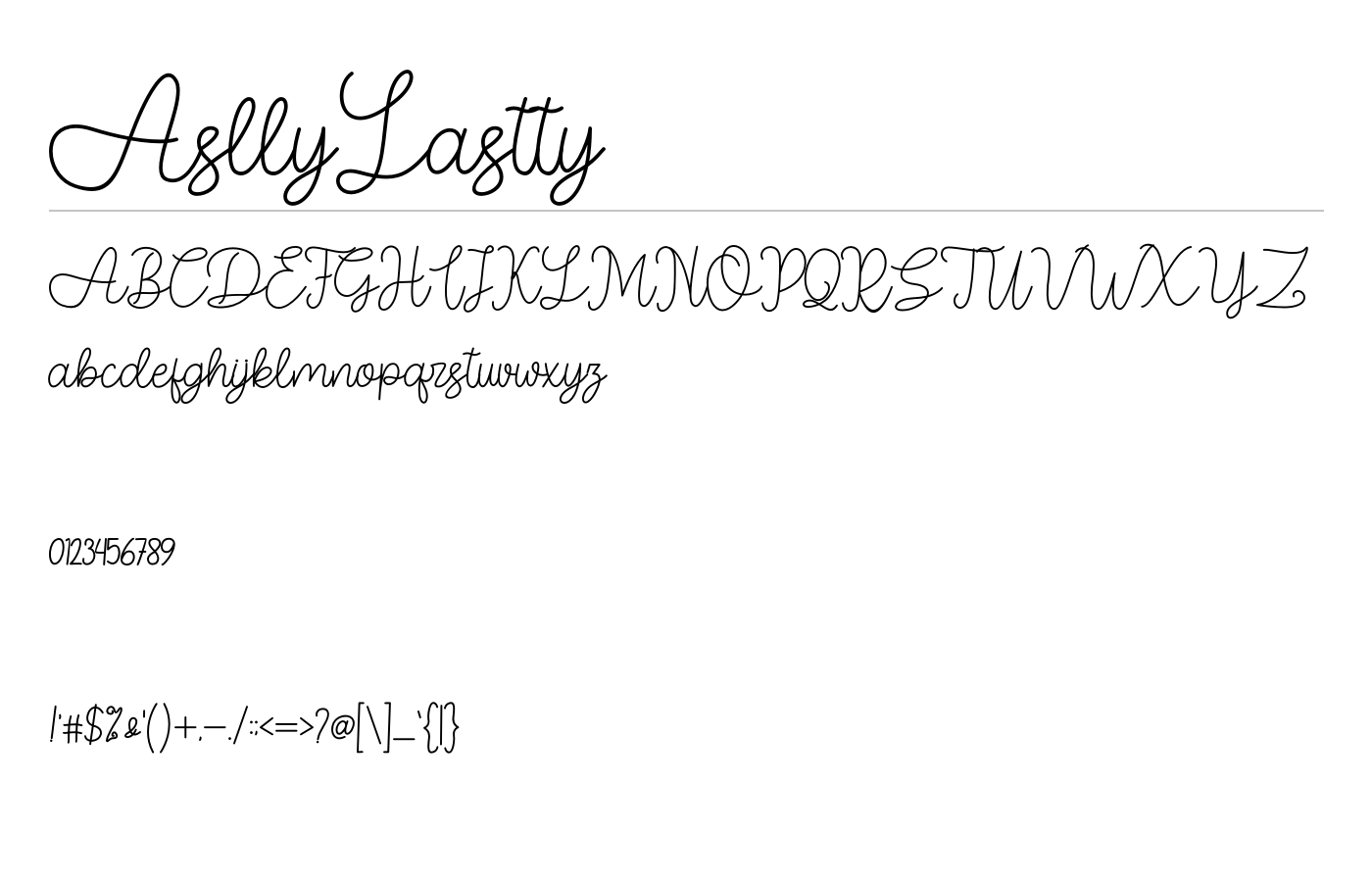
AsllyLastty is a delicate, elegant script font characterized by its thin, flowing strokes and graceful cursive letterforms. With a light weight and airy spacing, it conveys a refined and personal touch, ideal for invitations, branding, and any design requiring a sophisticated handwritten style. Its smooth, connected letters evoke charm and warmth, making it perfect for fashion, wedding, and luxury-themed projects.
AsllyLastty Font
About AsllyLastty Font